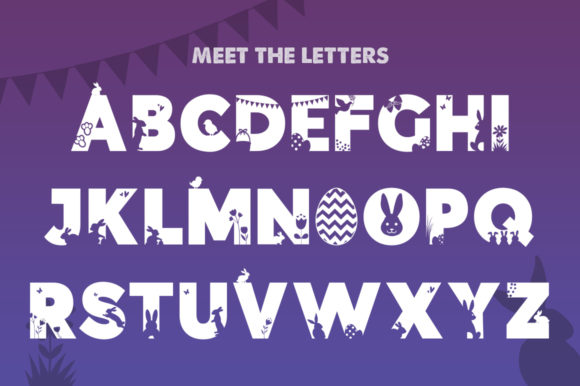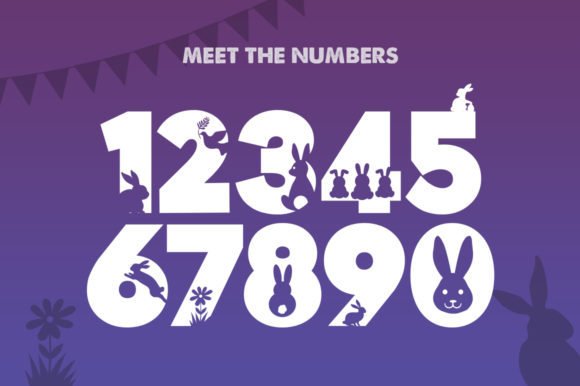
The Easter Font: A Magical Display Font for Your Creative Projects
As a designer, I’ve had my fair share of moments where I’ve struggled to find the perfect font for a project. I recall working on an Easter-themed craft project for a client, wanting to create something that was both elegant and playful. That’s when I stumbled upon the Easter Font, a beautiful display font that combines timeless elegance with cute Easter-themed silhouettes. In this article, I’ll share my experience with the Easter Font, its features, and how to make the most of it in your designs.
A Personal Design Moment: Finding the Perfect Font
I was working on a project to create Easter-themed greeting cards for a client. I wanted a font that would capture the essence of the holiday – fun, playful, and elegant. After searching through numerous font libraries, I came across the Easter Font. Its unique blend of classic style and Easter-themed elements immediately caught my attention. I knew I had found the perfect font for my project.
An Honest Review of the Easter Font
- ✨ Elegant and playful design that perfectly captures the Easter spirit
- ✅ Highly versatile and can be used for various design projects, from greeting cards to posters
- 🌸 Beautifully crafted Easter-themed silhouettes that add a touch of whimsy to your designs
- 📚 Features an incredibly classic style while maintaining a friendly feel
While the Easter Font is an excellent choice for many design projects, there are a few things to keep in mind:
- ⚠️ The font’s Easter-themed elements may not be suitable for all design projects, so use it judiciously
- 🤔 Some users may find the font’s playful elements too whimsical for certain projects
- Experiment with the font’s OpenType features, such as glyphs and stylistic alternates, to add more variety to your design
The Designer Inspiration Behind the Easter Font
The Easter Font was created with the intention of capturing the essence of the Easter holiday – a time for renewal, joy, and celebration. The designer aimed to create a font that would be both elegant and playful, perfect for Easter-themed designs. The result is a beautiful font that combines timeless elegance with cute Easter-themed silhouettes.
Q: What is the Easter Font?
A: The Easter Font is a magical display font carefully created with a touch of elegance and fun Easter-themed silhouettes.
Q: What design projects is the Easter Font suitable for?
A: The Easter Font is highly versatile and can be used for various design projects, from greeting cards to posters, and other Easter-themed designs.